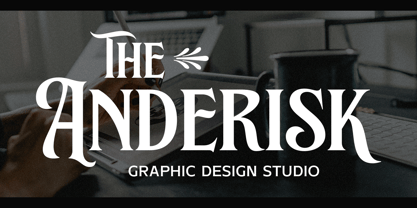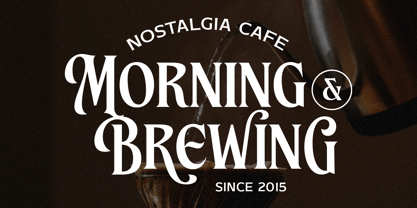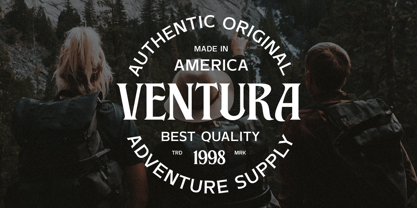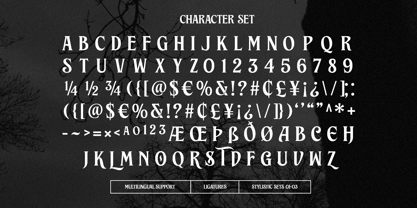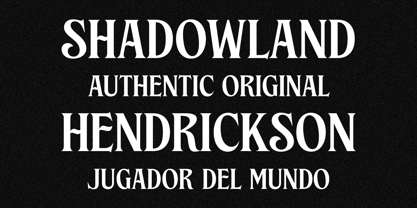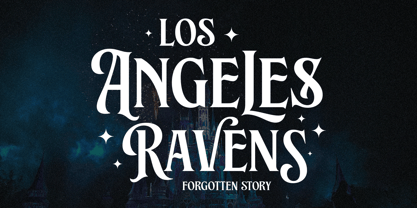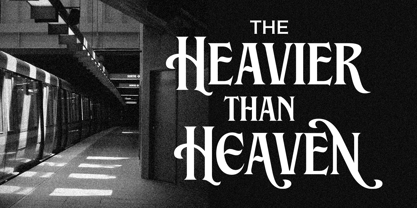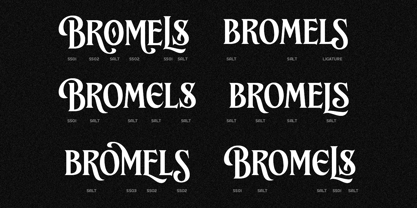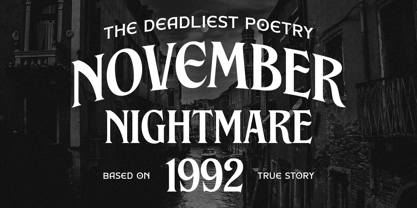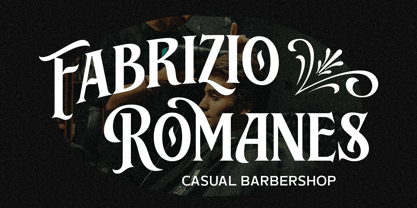
Brillante Siempre
by Arterfak Project
The Brillante Siempre Font Family was designed by Ahmad Ramzi Fahruddin and published by Arterfak Project. Brillante Siempre contains 1 styles.
Brillante Siempre is a fancy serif font that blends classic elegance with modern sophistication.
Designed with beautiful ornamental shapes, it brings a soft, romantic, and timeless feel to any project. Perfect for logos, headlines, posters, magazines, labels, and invitations, Brillante Siempre makes your designs stand out with effortless charm.
With powerful OpenType features, you can explore a variety of styles and personalize your work with ease. Whether you're creating for a brand, signage, titlevent, or publication, Brillante Siempre adds a refined and unforgettable touch.
Fonts featured :
- All-capitals characters
- Numbers & symbols
- Punctuation
- Stylistic alternates
- Ligatures
- Stylistic sets 01-03
- Multilingual Support
Bring timeless beauty and bold character to your design with Brillante Siempre.